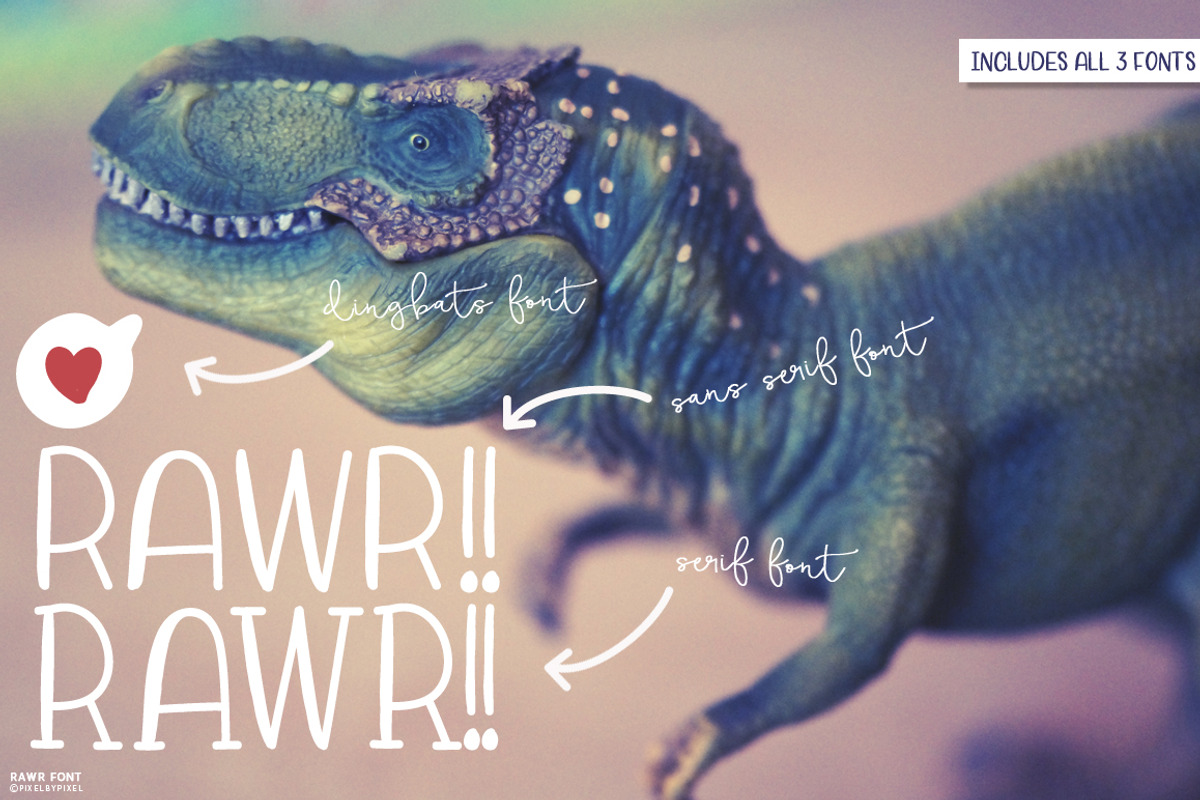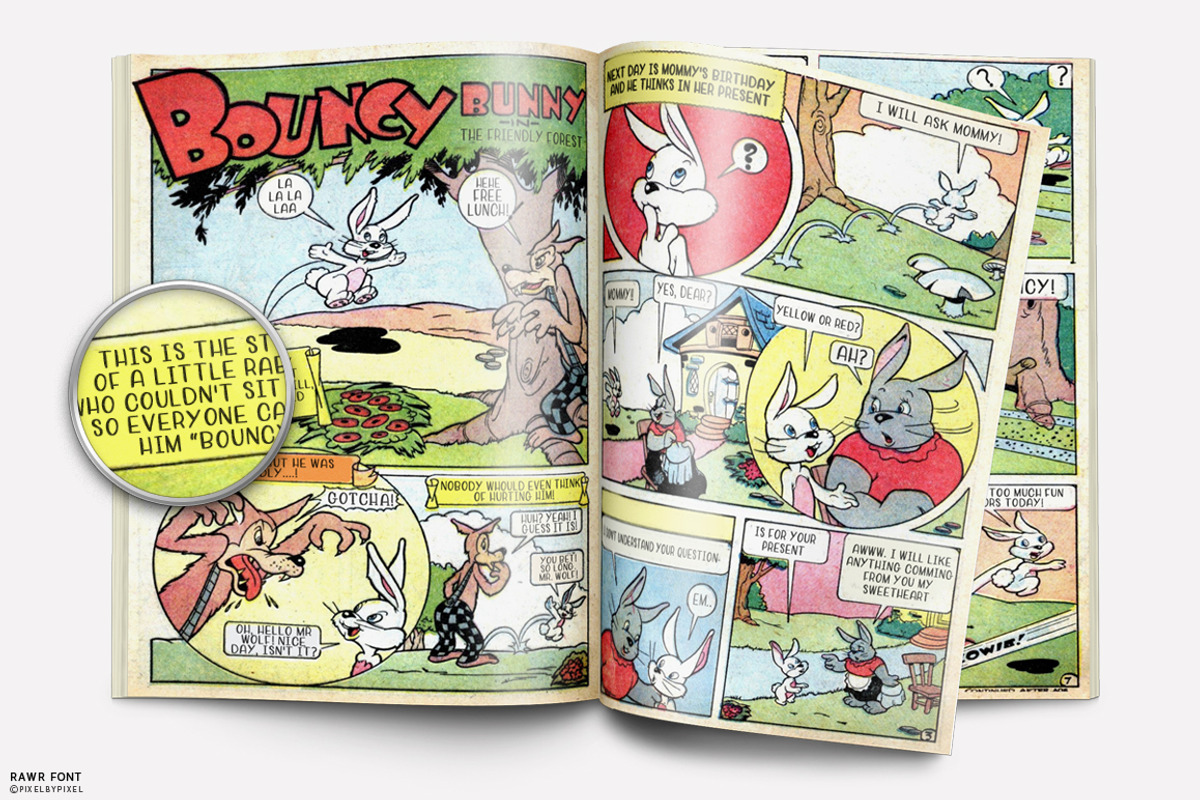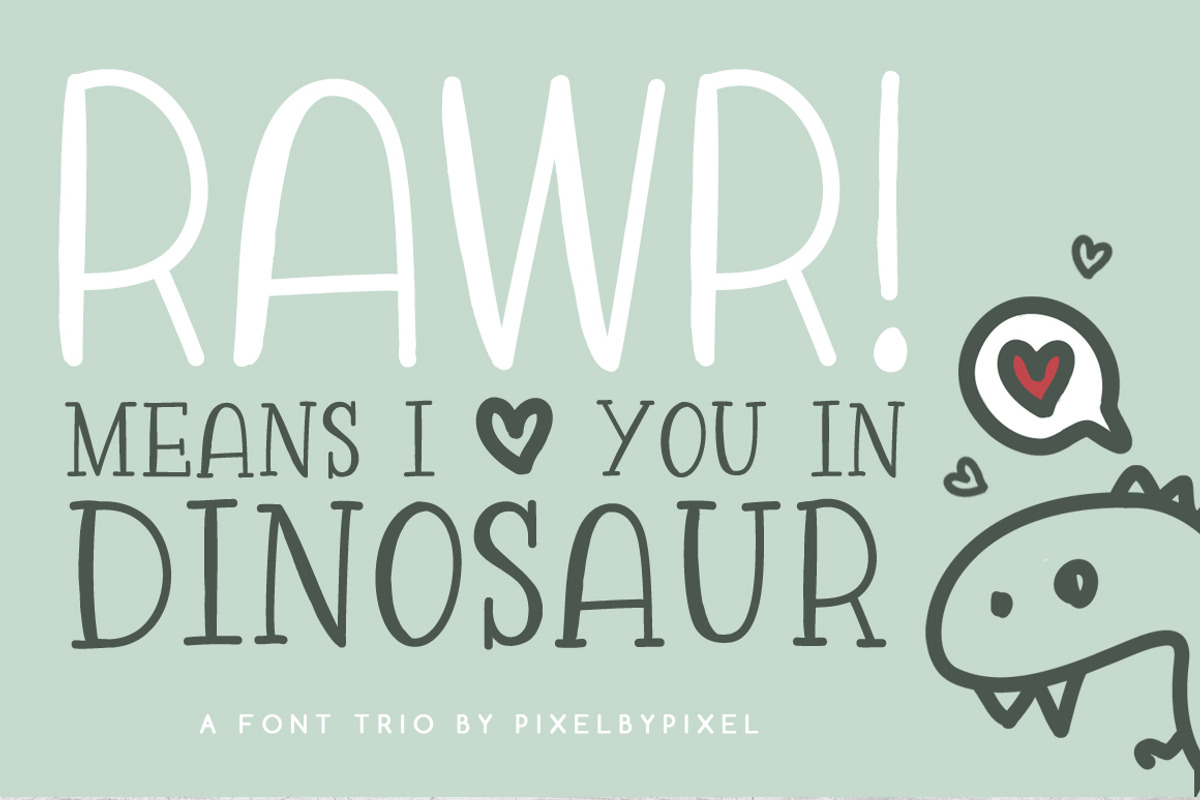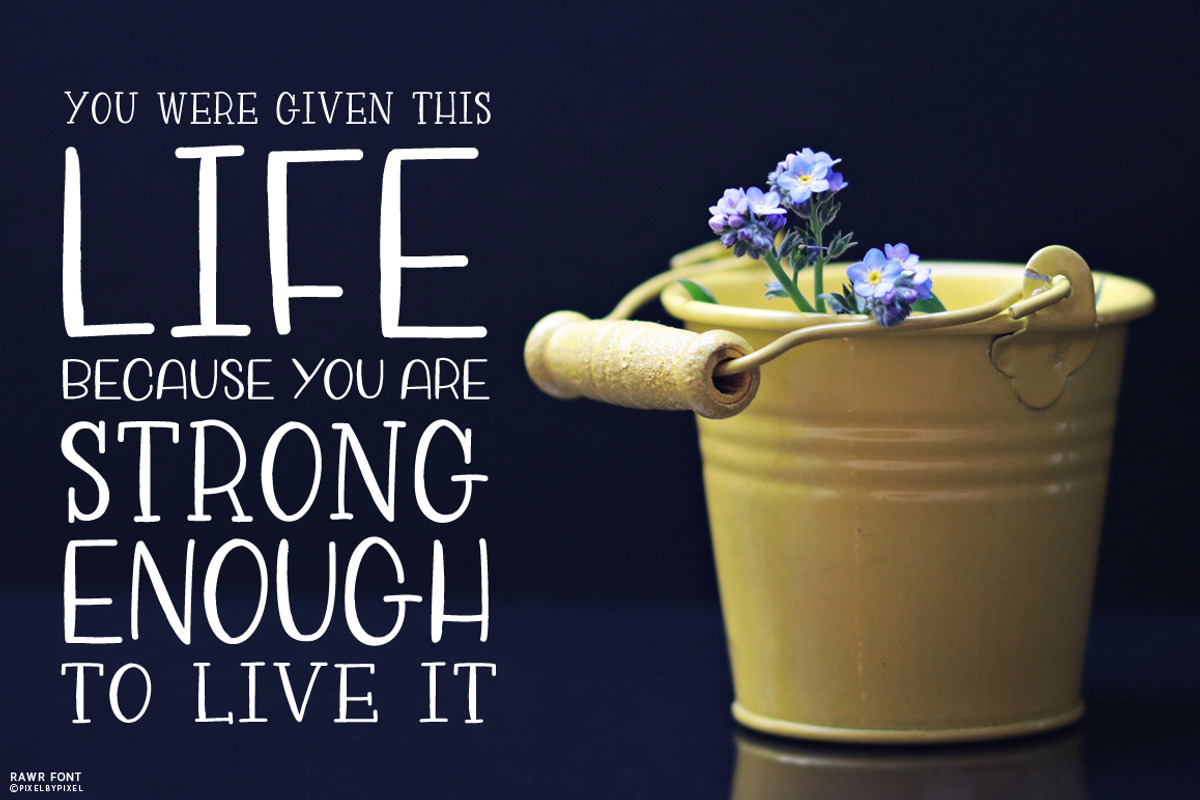
Rawr Sans Serif Font Trio
A sweet handwriting font trio that includes a serif and a sans serif. Use it as a display font or as a text font. Combine the fonts and decorate your project with the super cute dingbats!
- A sweet handwriting font trio that includes a serif and a sans serif.